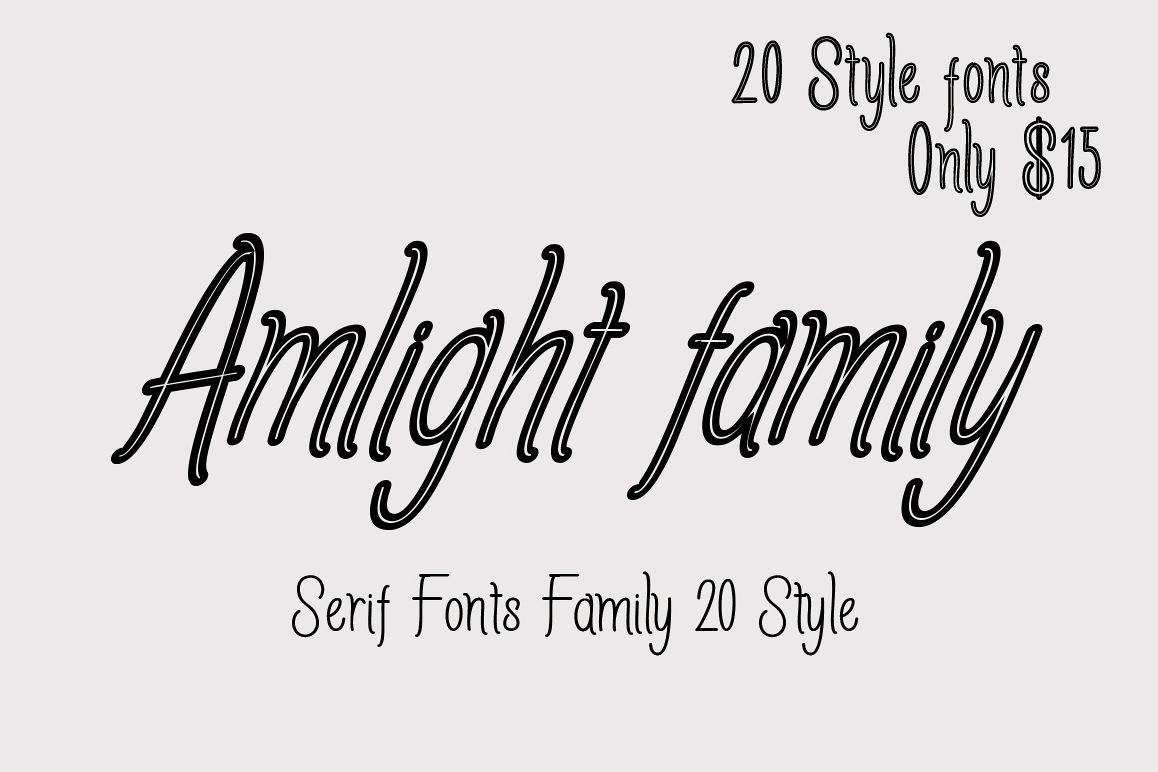
Amlight Family
Bold (Italic)
Reguler (Italic)
thin
SemiOutLine
Outline
SemiBold
MiniOutLine
Line (Italic)
Medium (Italic)
Medium
MiniOutLine (Italic)
Ligth
line
Bold
Thin (Italic)
semioutline (Italic)
OutLine(Italic)
Extra (Italic)
SemiBold (Italic)
Amlight is Font Family 20 Style typography with a firm structure and very comfortable for the reader, also has a simple character. very suitable for official media such as banners, magazines, newspapers, books, and others.
Languages supported: Breton, Catalan, Czech, Danish, Estonian,French, German, Hungarian, Icelandic, Italian, Romanian, Scottish Gaelic, Slovak, Latvian, Lithuanian, Norwegian, English, Finnish, Polish, Portuguese, Slovenian, Spanish, Swedish, Turkish, Welsh. Basically, all european languages that are based on latin alphabet